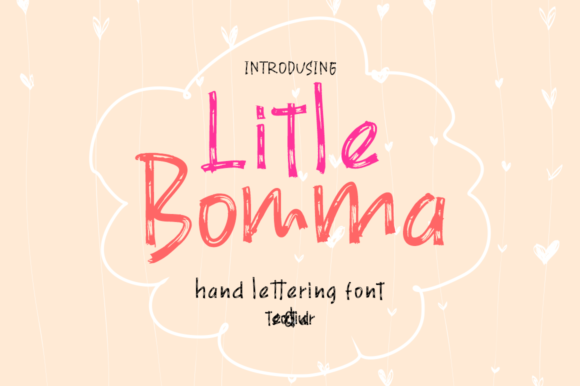
Step into the whimsical world of Litle Bomma, a display font family bursting with childlike charm and playful aesthetics. Designed by the talented hands at Letteriono, this font is a captivating medley of cuteness, quirkiness, and innocence. Its rounded edges, playful strokes, and endearingly imperfect characters infuse your designs with a sense of childlike wonder.
Unleash your creativity and let your imagination run wild with Litle Bomma. Whether you're crafting heartwarming messages for your loved ones, creating whimsical invitations for special occasions, or designing playful branding for your kid-centric business, this font will transform your words into enchanting works of art. Its unique appearance adds a touch of whimsy to any project, making it perfect for invitations, posters, greeting cards, and social media posts.
Add a touch of magic to your digital designs with Litle Bomma. Its captivating style is sure to capture the attention of your audience, leaving a lasting impression. It's the perfect font for creating eye-catching headlines, engaging social media posts, and captivating presentations that will leave your viewers spellbound.
With Litle Bomma, the possibilities are endless. Its versatility extends beyond personal projects, making it an excellent choice for professional designers looking to add a touch of whimsy to their work. Create enchanting logos, design captivating marketing materials, or craft enchanting website designs that will captivate your visitors.